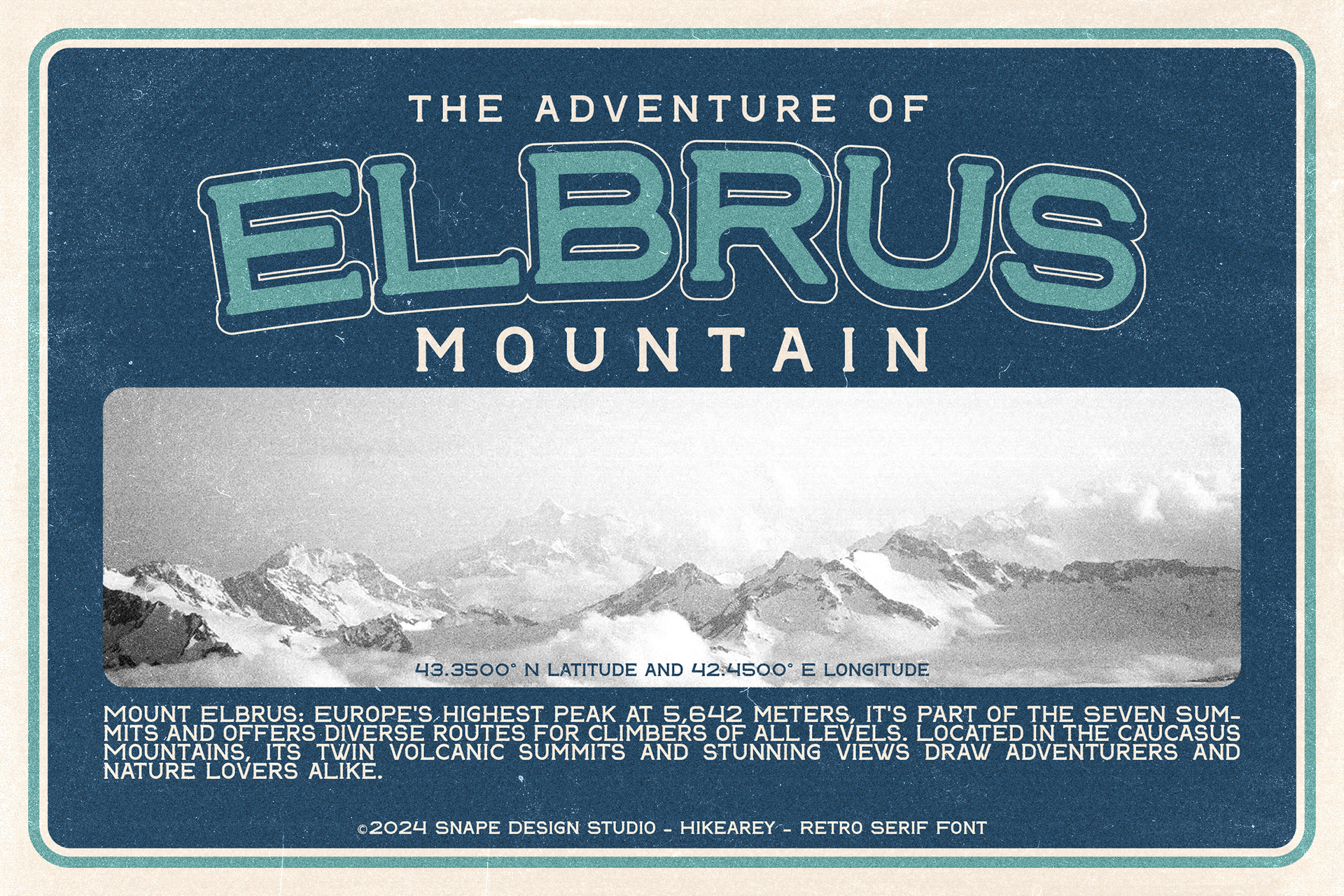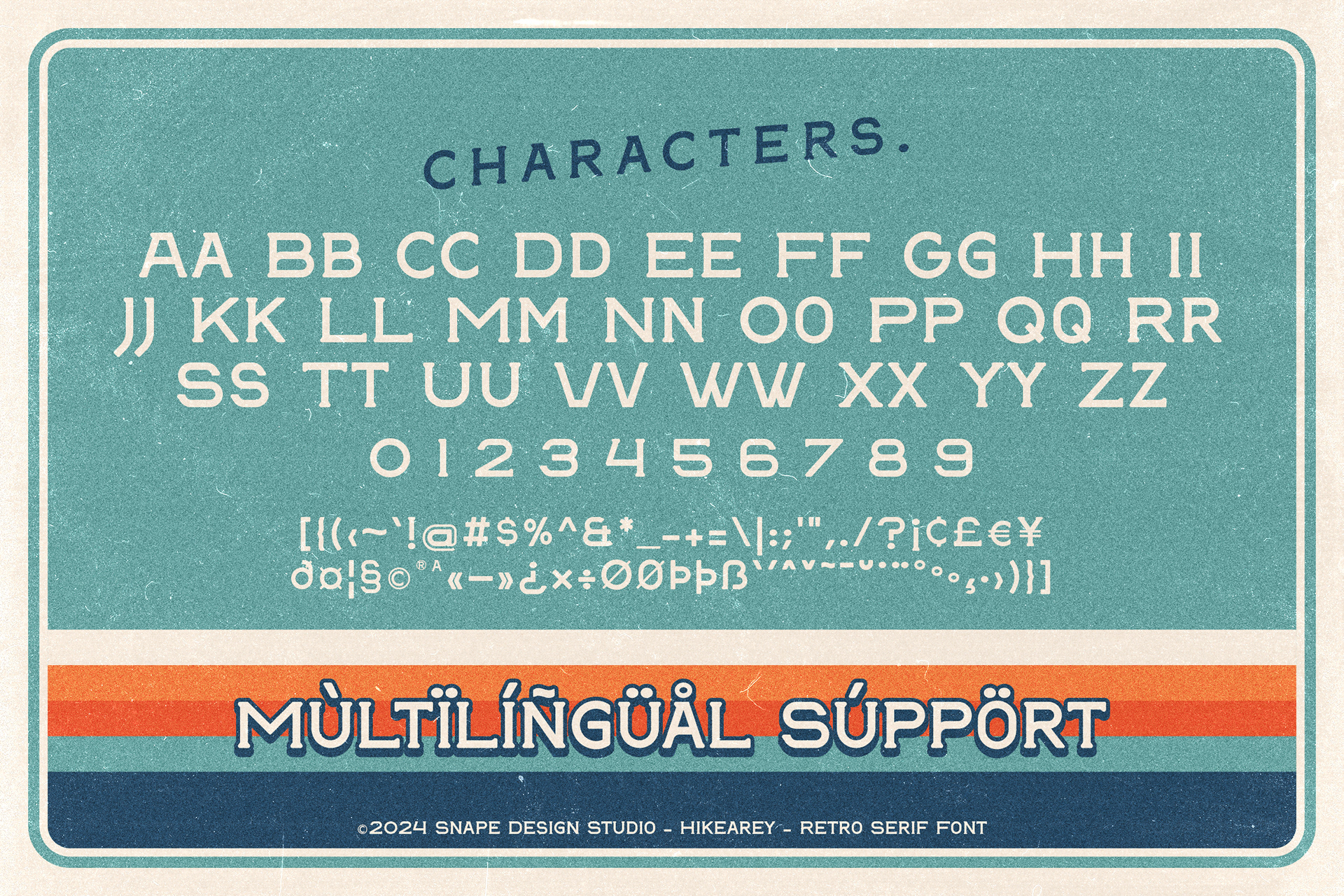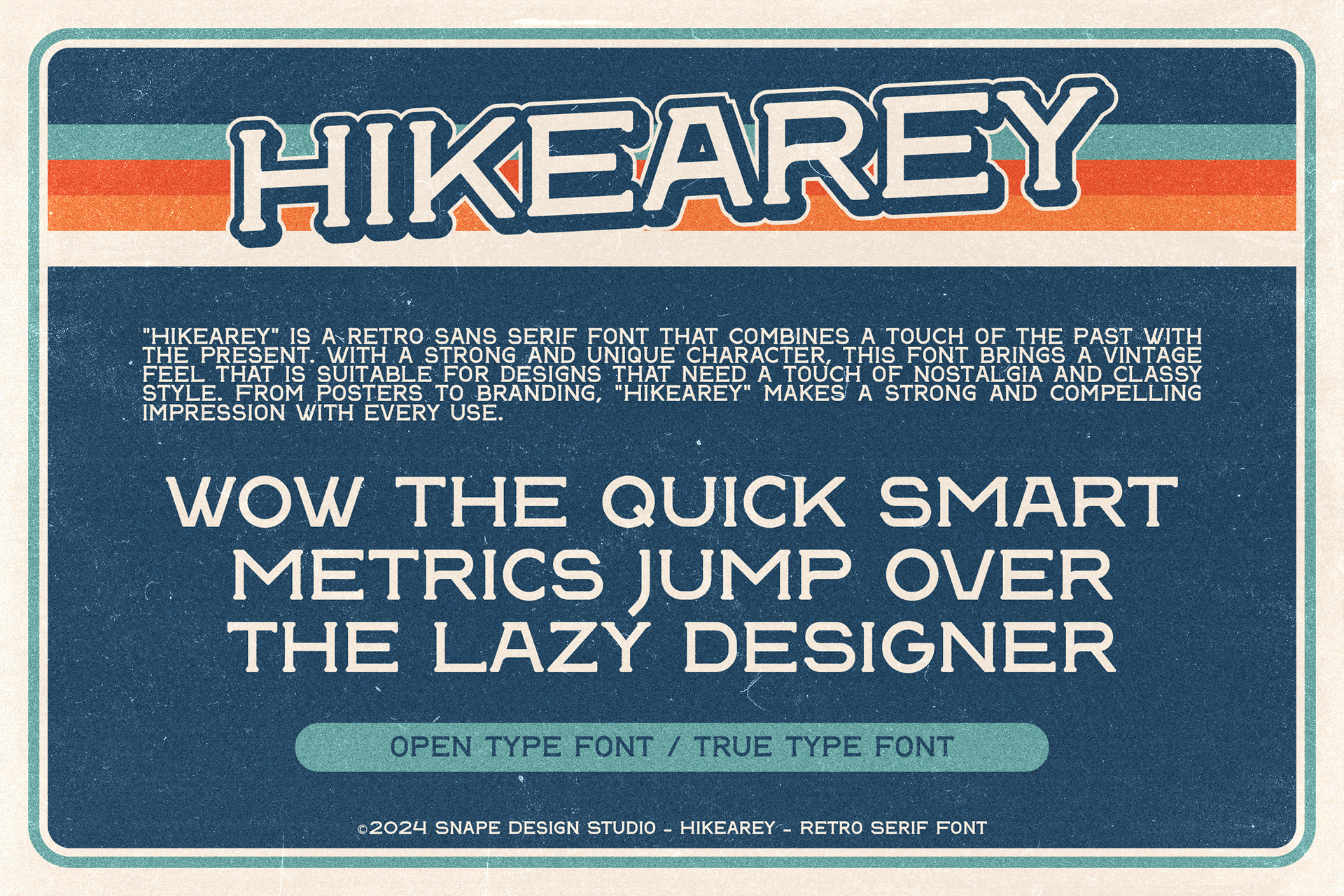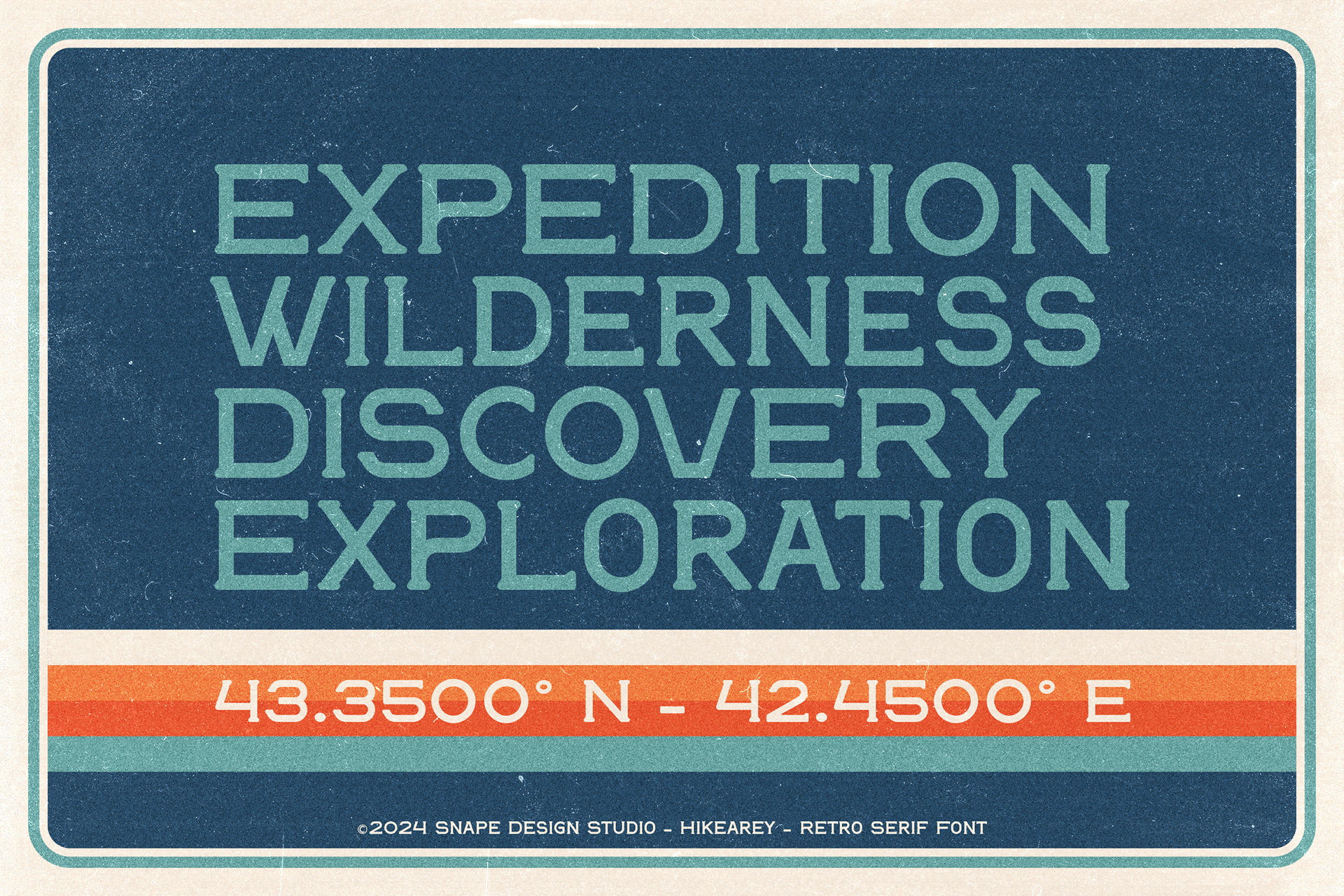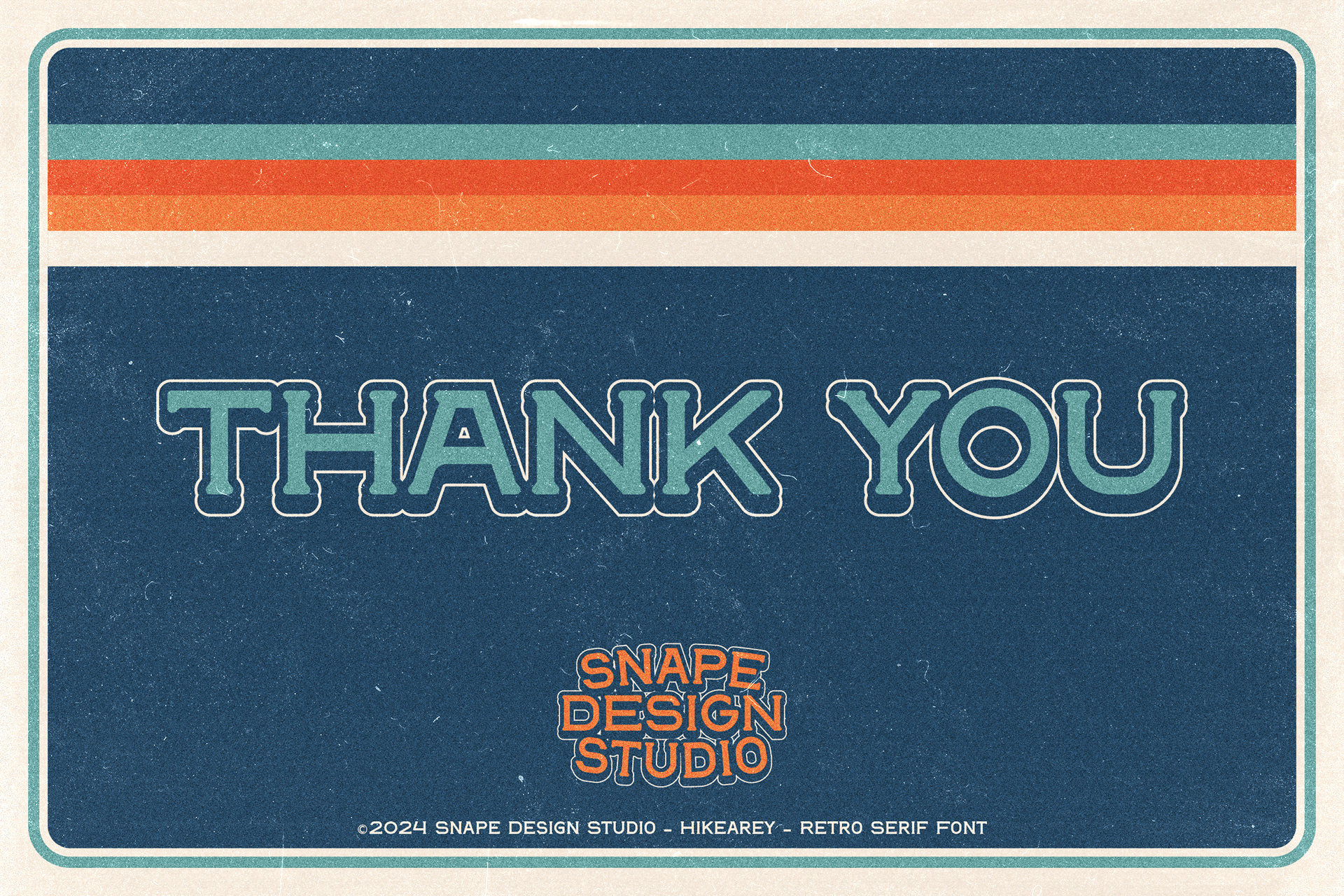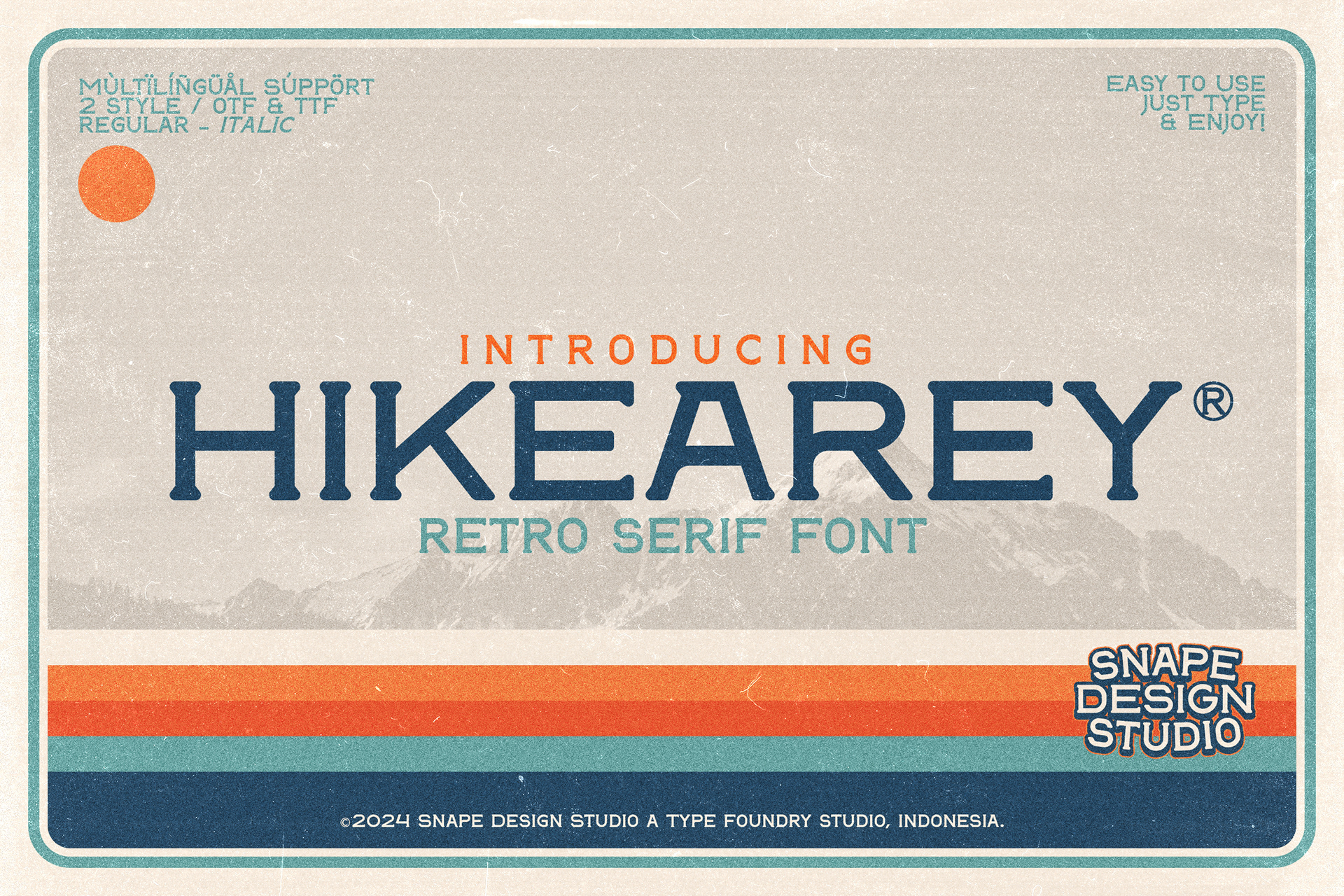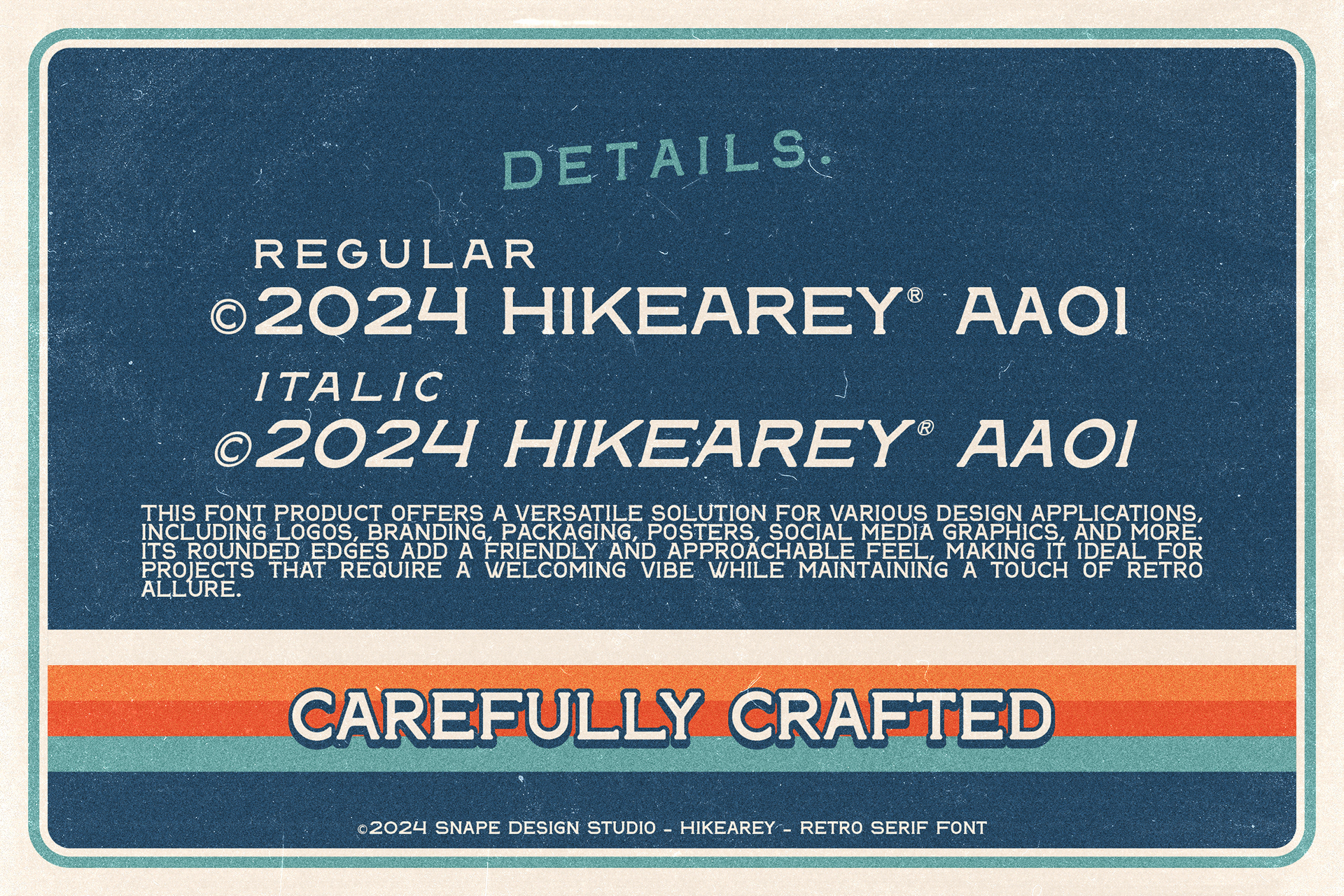
Hikearey, a retro serif font, exudes vintage allure with its classic design. Inspired by mid-century typography, it adds a nostalgic touch to any project, evoking a sense of timeless elegance. Perfect for bringing a hint of the past into modern designs.